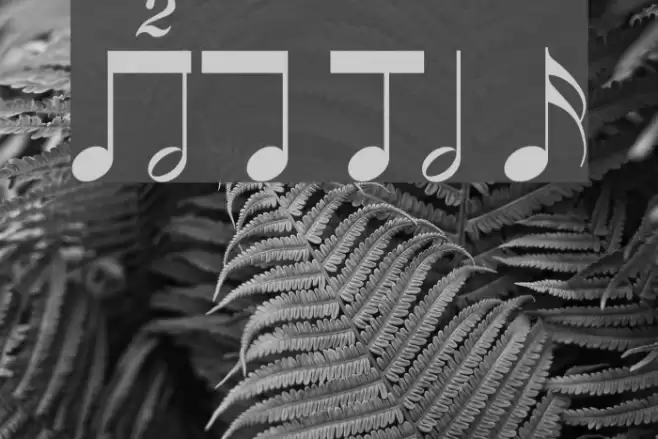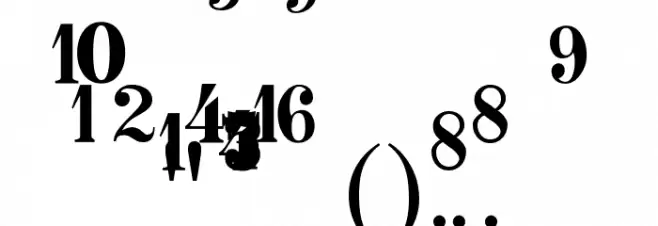
Rhythms Font
Rhythms Description
A decorative font inspired by musical notation and rhythms, featuring bold, stylized musical notes, rests, and numbers with varying stroke thicknesses and intricate details.
Decorative font mimicking musical rhythms and notation symbols from Uncategorized fonts.
- Proposed Projects: Music-related designs, album covers, concert posters, educational materials for music theory, artistic projects involving sound or rhythm themes.
- Overall Style: Artistic, Thematic
- Use Case: Headlines, Logos, Thematic Displays